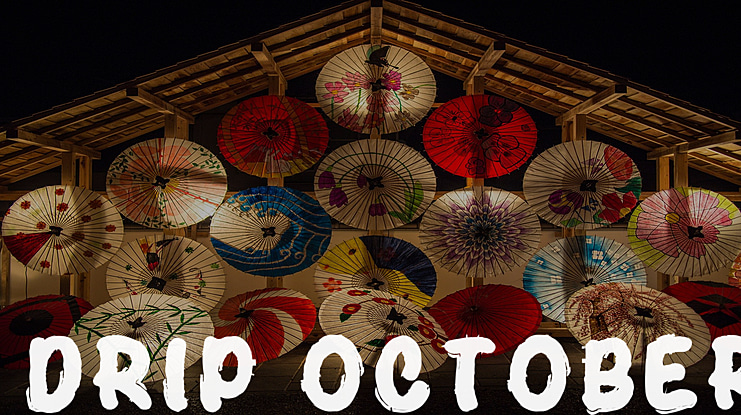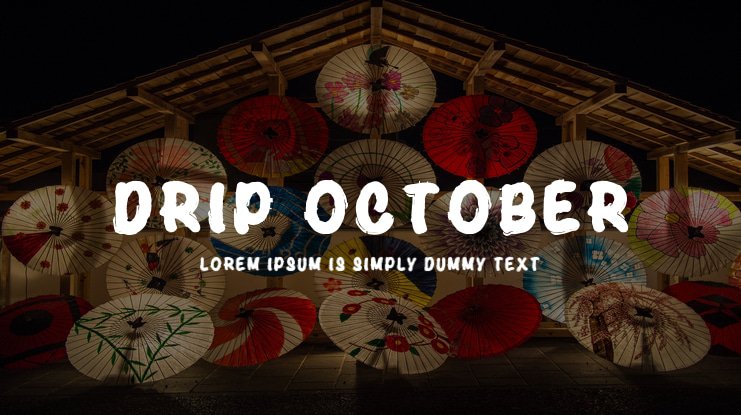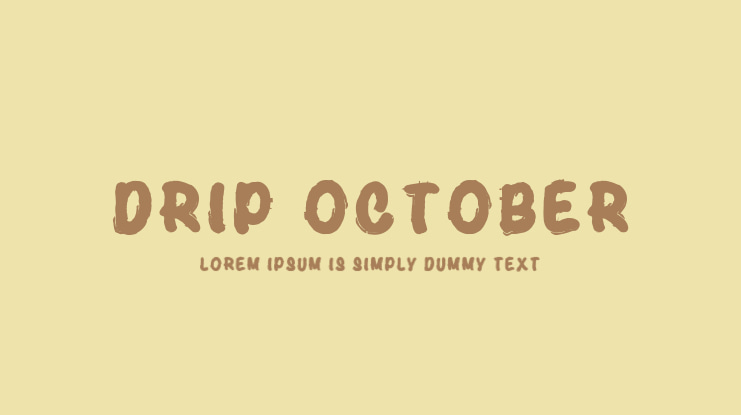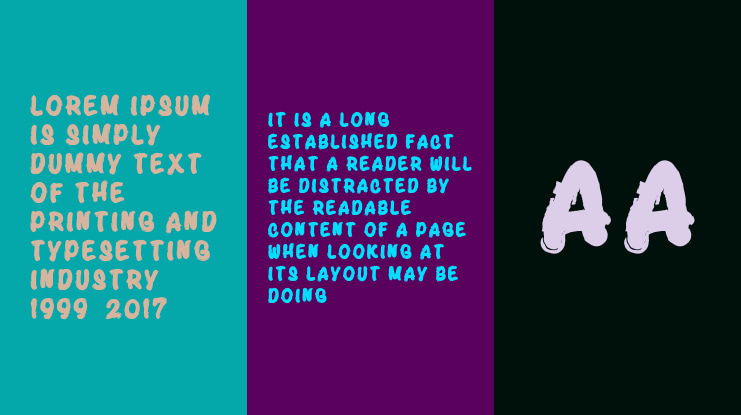
Drip October Font
Drip October is a dripping marker font perfect for use in poster, displays, branding projects, logos, signage, posters, invites and more. This is a beautiful textured marker font which gives naturally textured strokes.